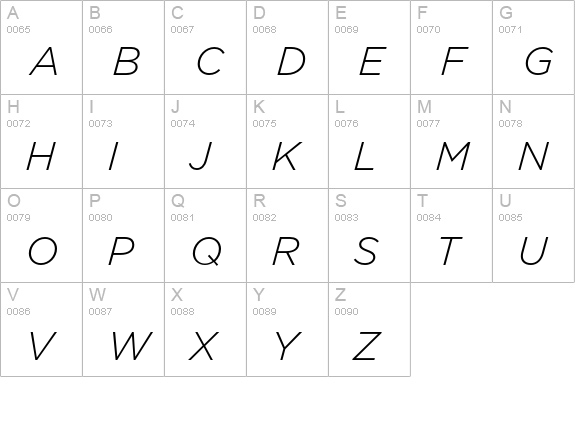
GothamLight Italic Font Details
GothamLight Italic is a distinctive, italic variant in the GothamLight typeface family \xE2\x80\x94 well suited to design and typography projects.
GothamLight Italic font exudes elegance and sophistication with its sleek and stylish design. The slender and slanted characters create a sense of modernity and refinement, making it a perfect choice for projects that require a touch of sophistication. This font is perfect for creating a sense of movement and flow in your designs, while maintaining a professional and polished look. Its italicized form adds a touch of flair and personality, making it ideal for adding emphasis to important text or creating a dynamic visual impact. Best of all, GothamLight Italic font is available for free download at FontsMarket.com. Whether you're working on a branding project, a website design, or any other creative endeavor, this font is sure to elevate your work and make a lasting impression. Download GothamLight Italic today and unlock a world of possibilities for your design projects.